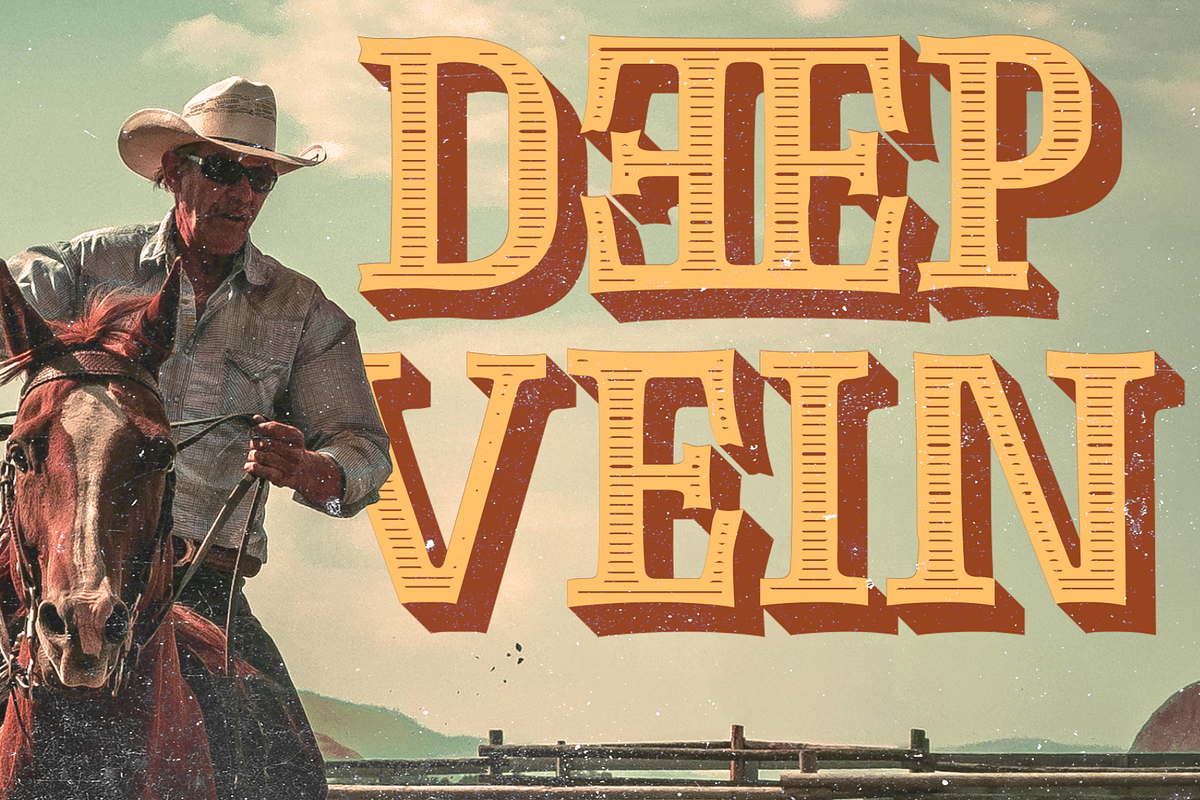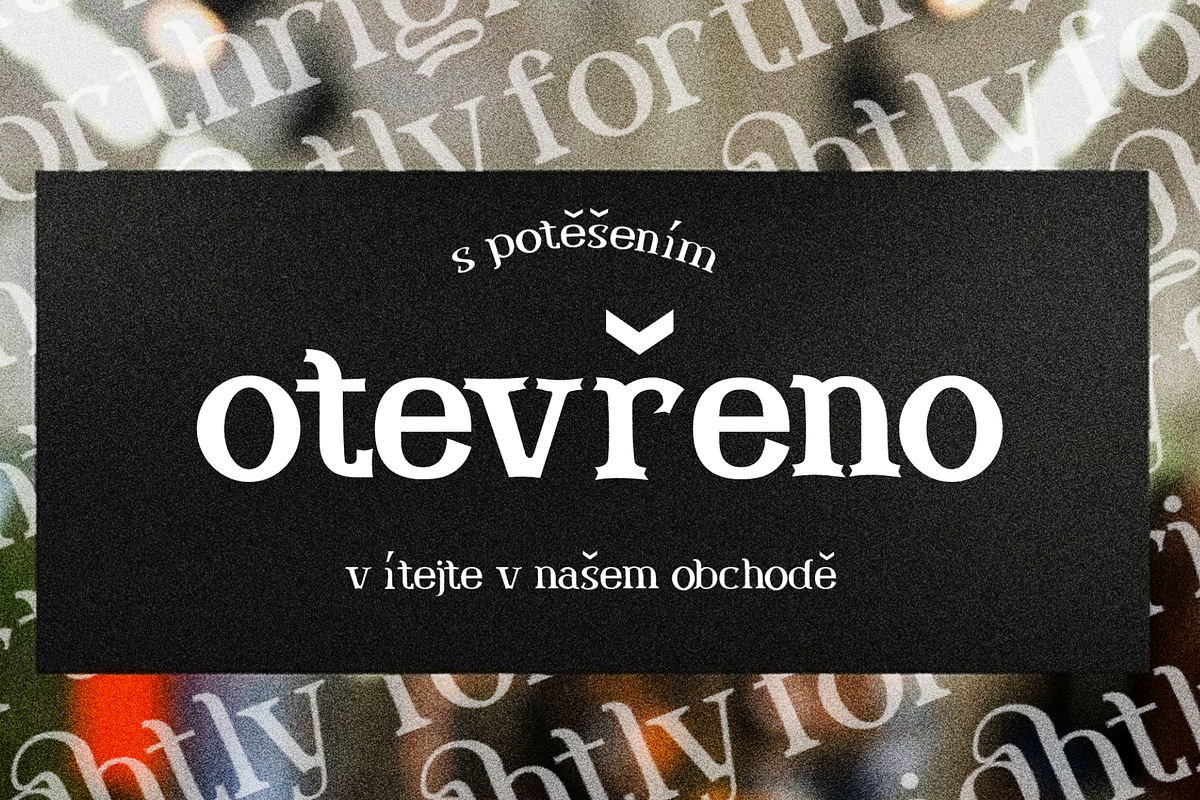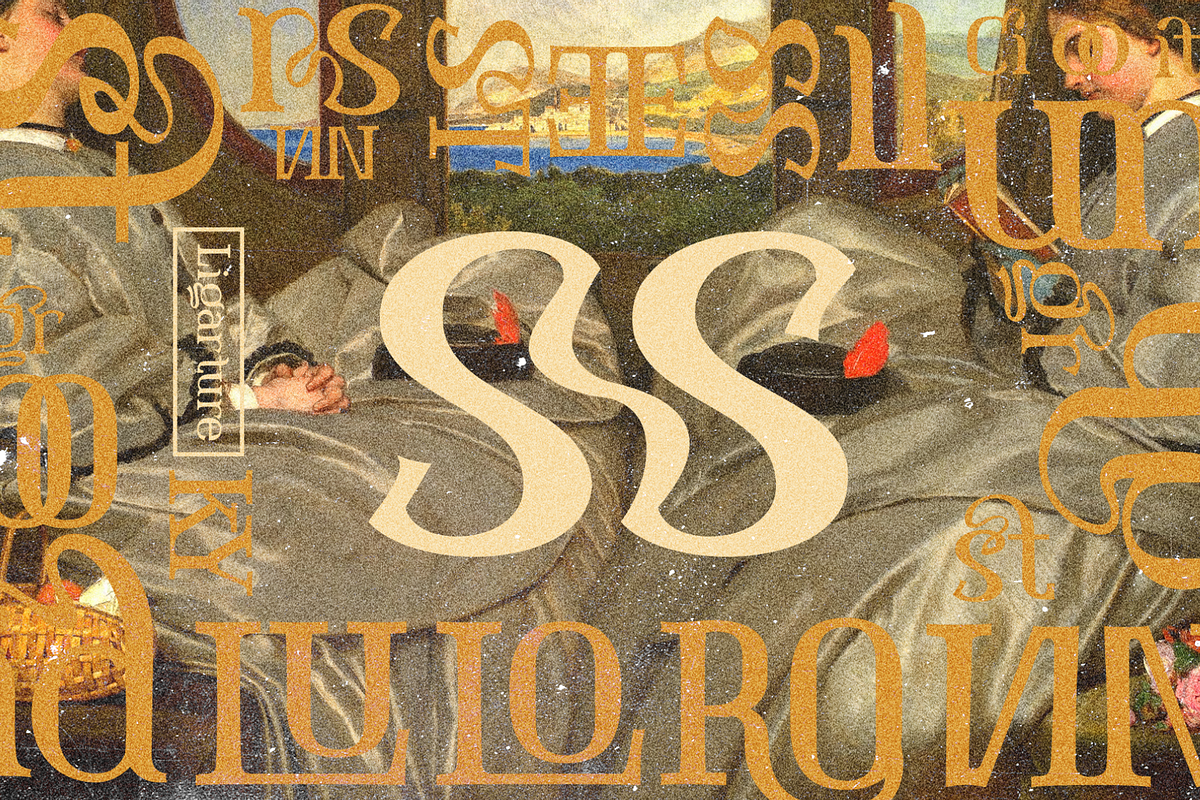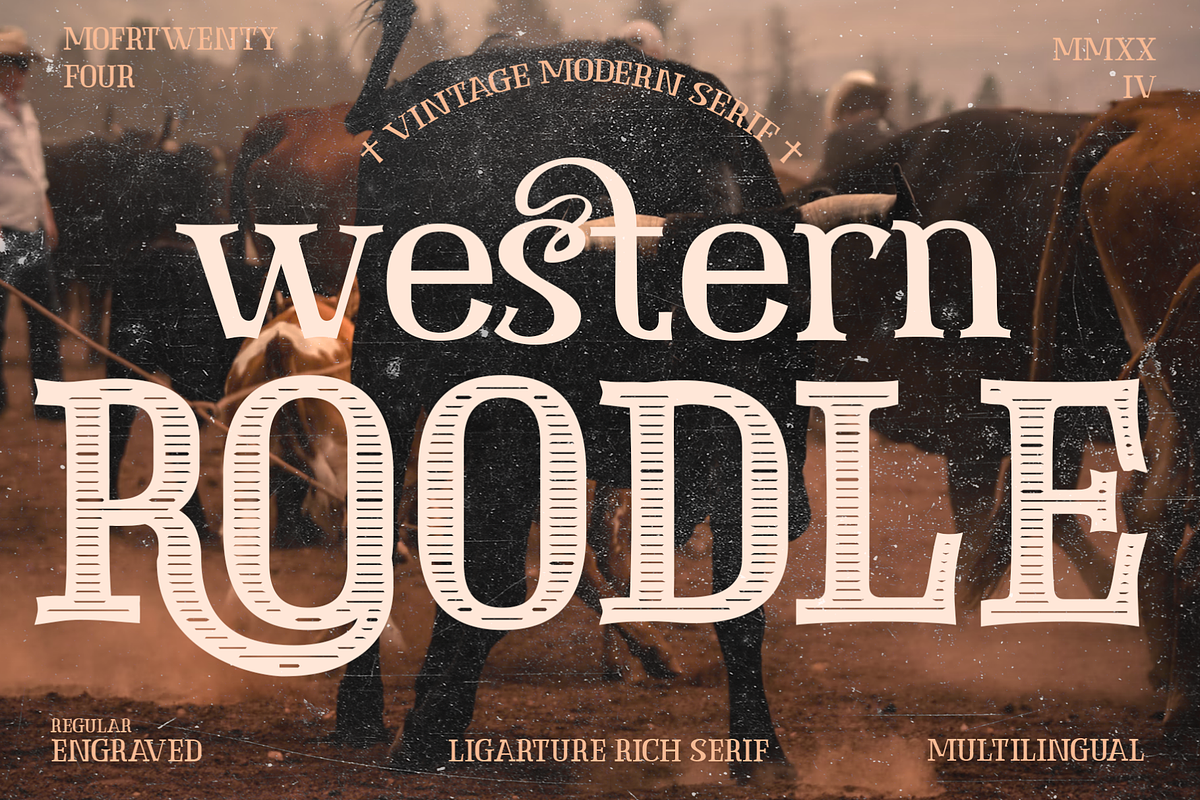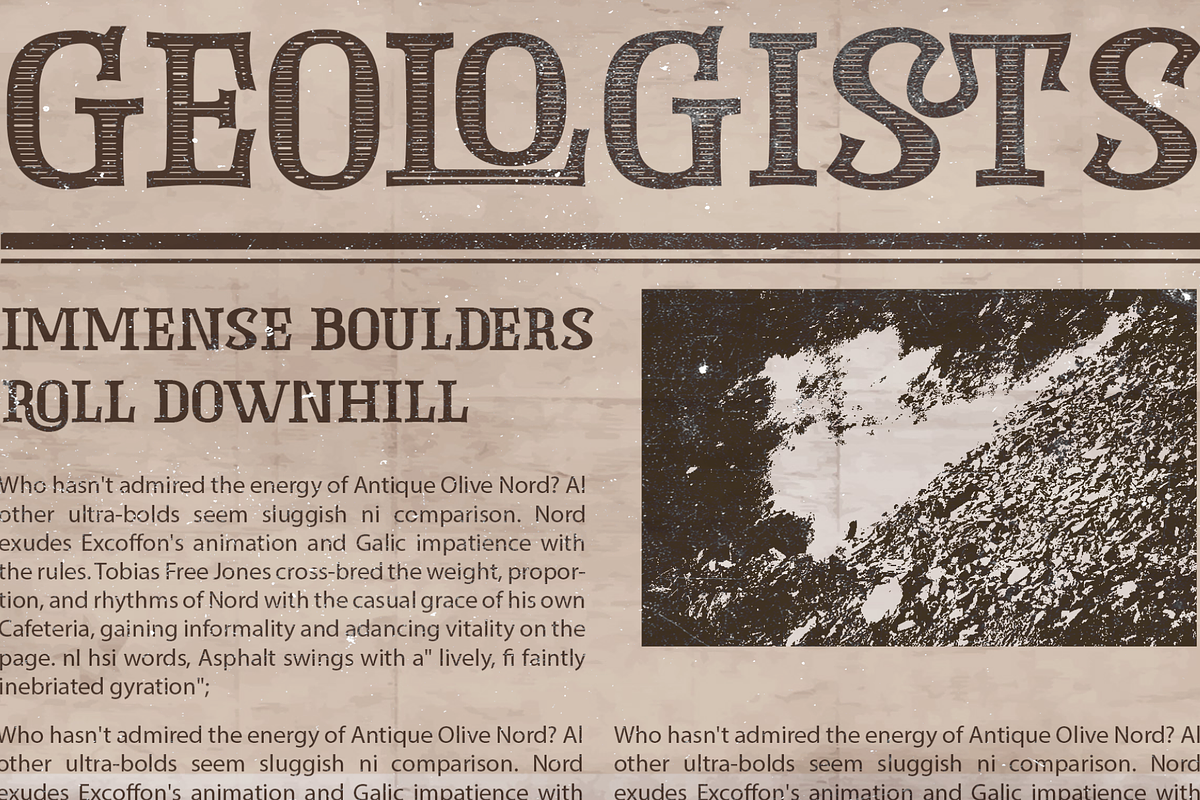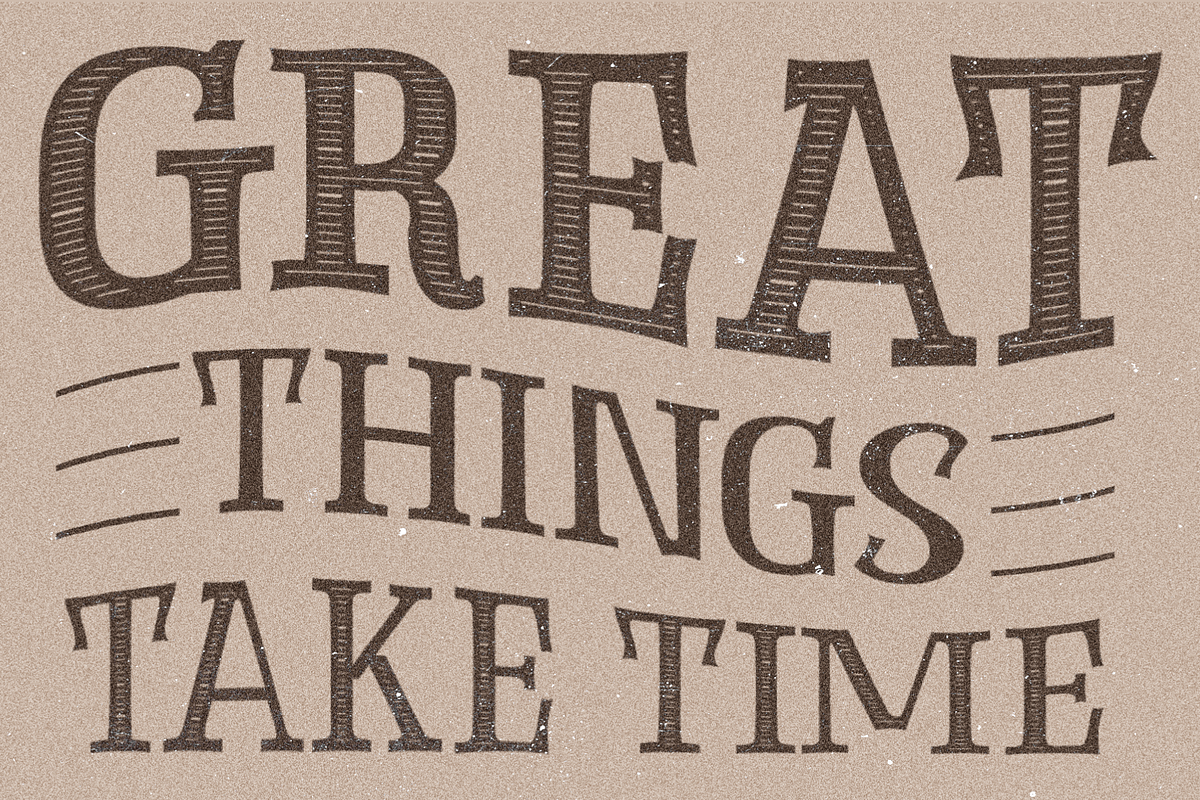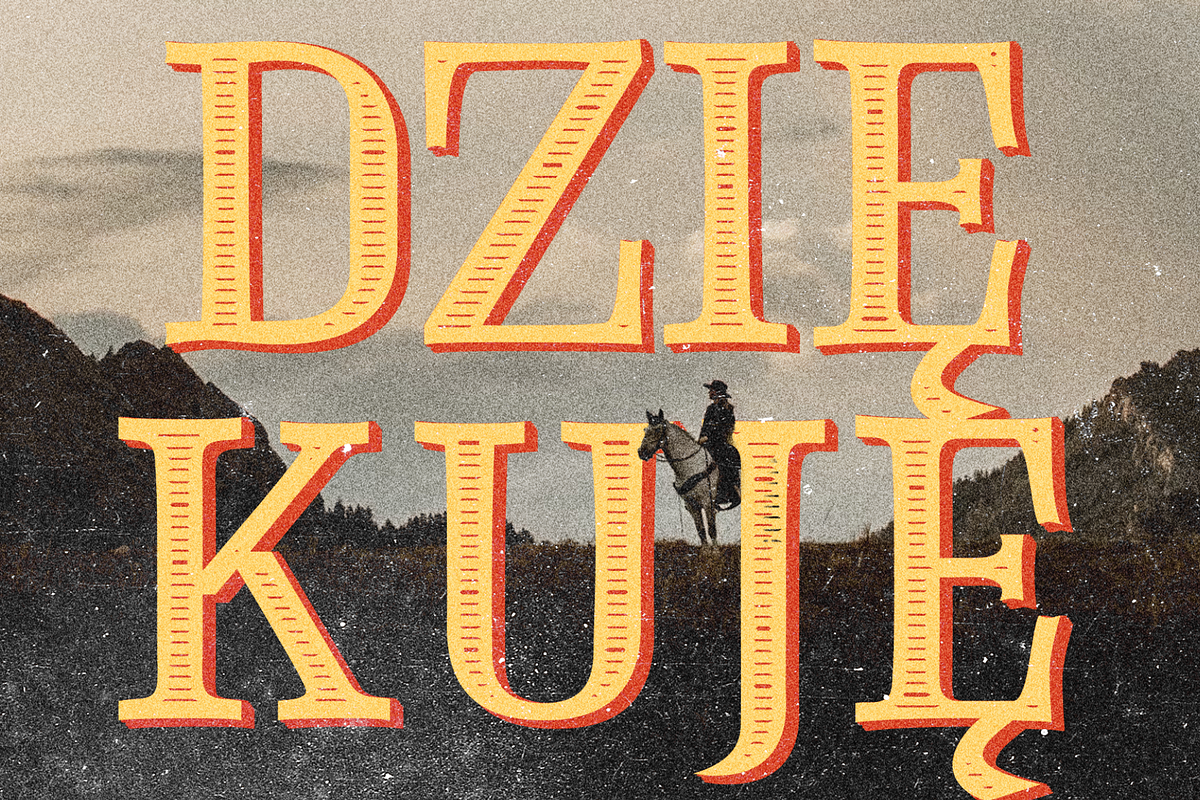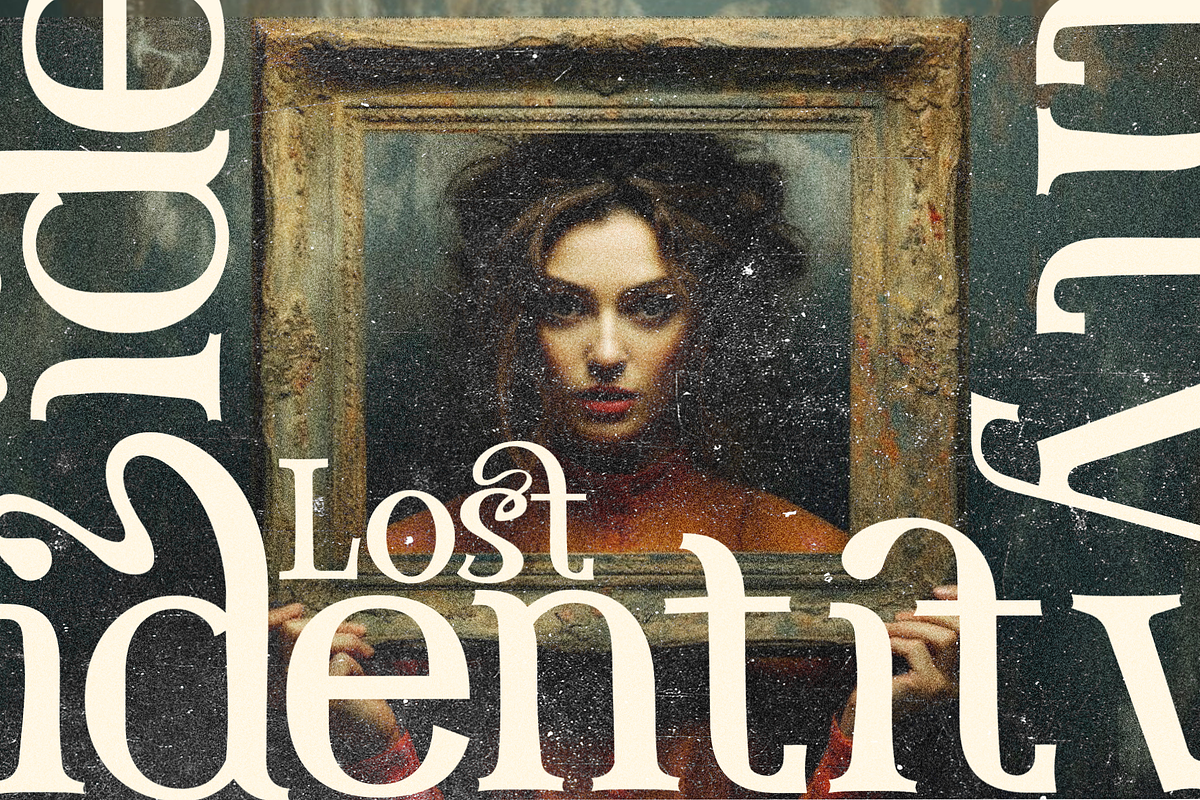
Western Roodle-Vintage Modern Serif
Introducing Western Roodle an exquisitely curated merger of old-world charm and modern sophistication. This serif font encapsulates effortless elegance while maintaining a robust usefulness. Constructed with multilingual capabilities, Western Roodle presents in both engraved and standard styling with an impressive range of over 300 glyphs, serving diverse creative endeavours. A treasure trove of ligatures, Western Roodle shines in its adaptability in branding, typography, captivating magazine layouts, attention-grabbing posters, thumbnail design, and stylish t-shirt artwork. The harmonious blend of timeless classics and modern accents guarantees your creations will radiate with unmatched grace and style.